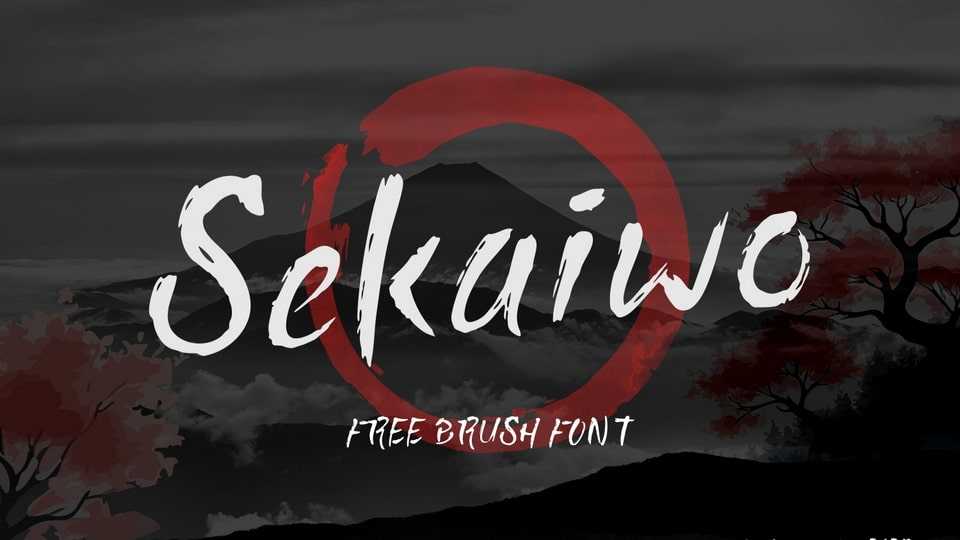
Download Sekaiwo font, a bold, expressive brush typeface inspired by Japanese calligraphy and traditional ink strokes with its raw texture and energetic flow.
Designer: Tkzgraphic